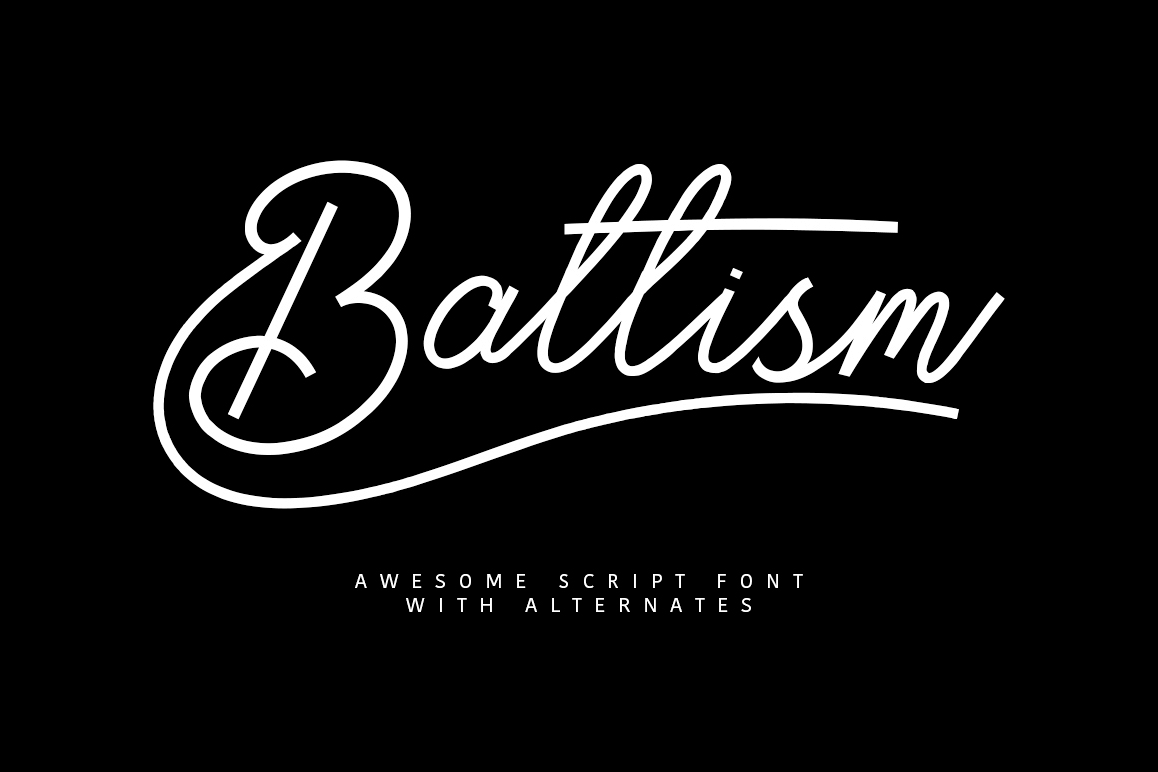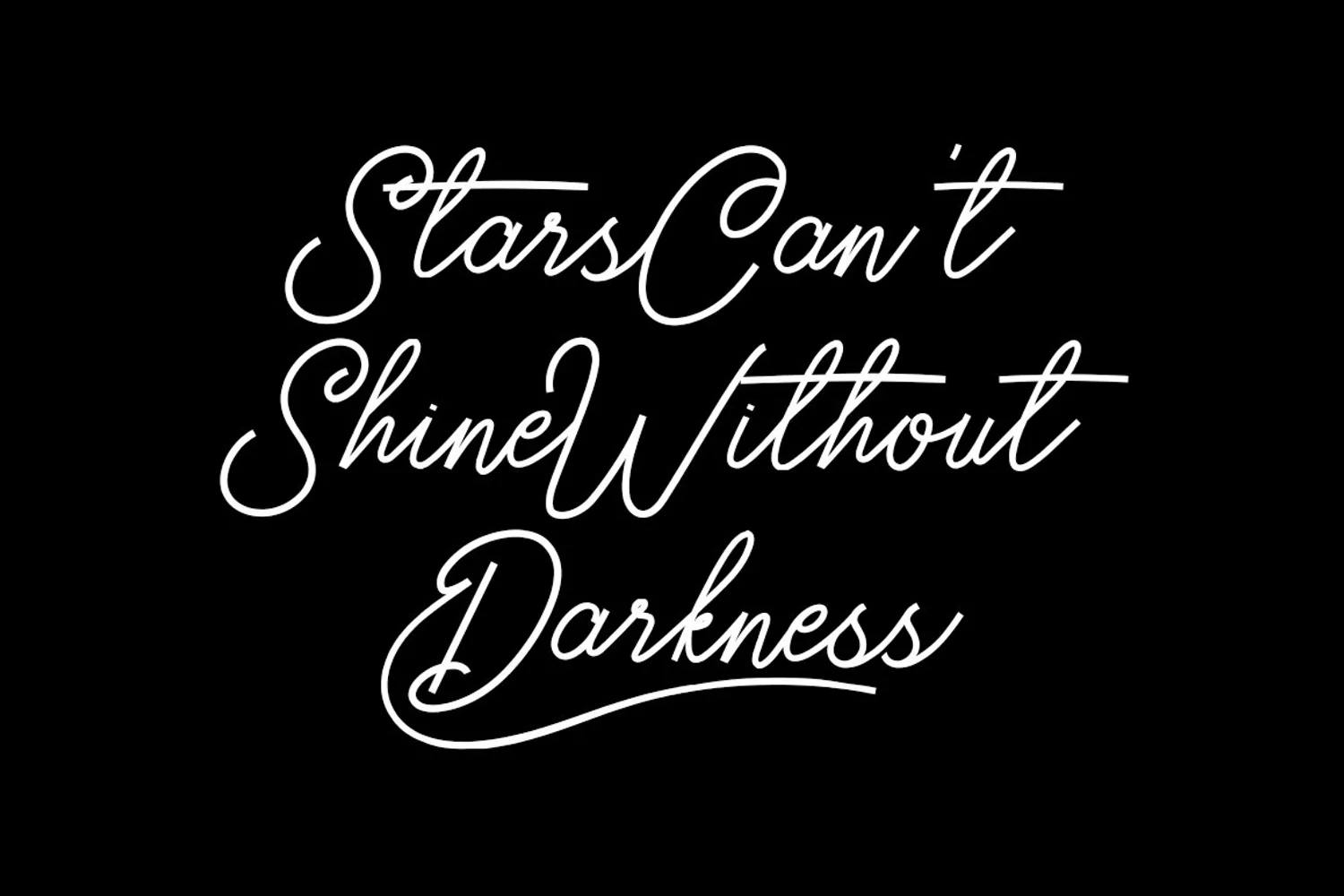
Give your designs an authentic handcrafted feel. "Baltism Typeface" is perfectly suited to signature, stationery, logo, typography quotes, magazine or book cover, website header, clothing, branding, packaging design and more. License: This font included for personal, commercial use, multiple projects, behalf of a client. Fonts may be printed on to products that are subsequently sold, websites and within website design. Graphics may be printed on to products that are subsequently sold when an effort is made to use them as part of a new design including a variation of other graphics or fonts. This font available on Duo OTF and TTF formats. Tell me at comment if you need a more awesome glyphsThanks for use this font